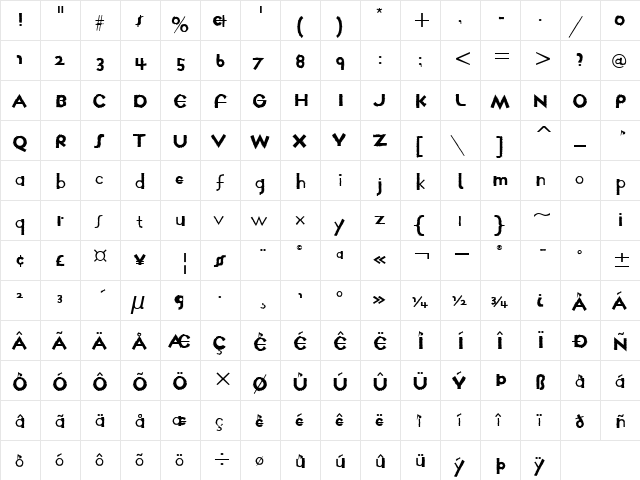
Farmhaus Not So Normal ITC TT Regular
Farmhaus Not So Normal ITC TT is a composed and adaptable typeface that performs quietly and consistently across a wide range of design contexts.